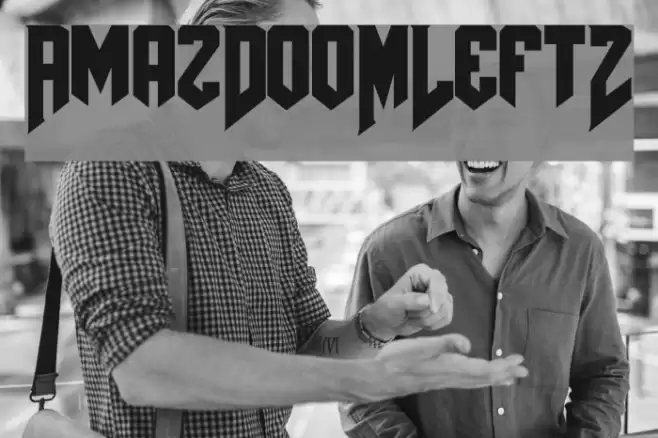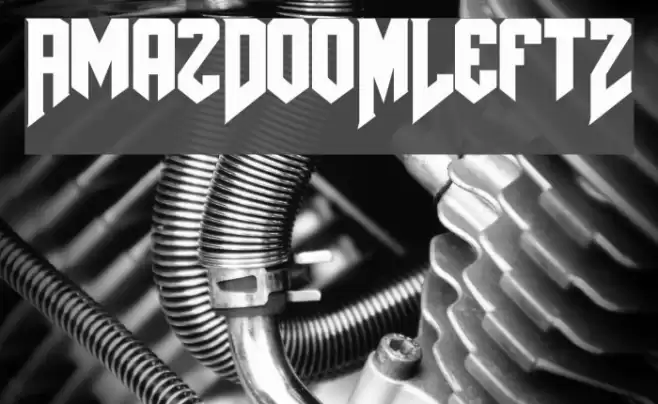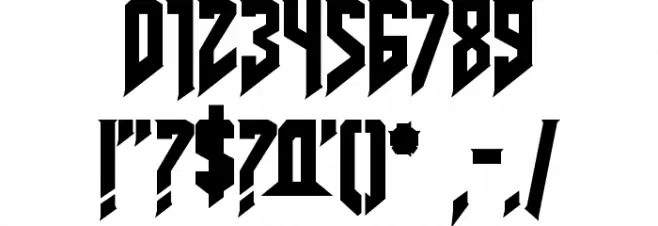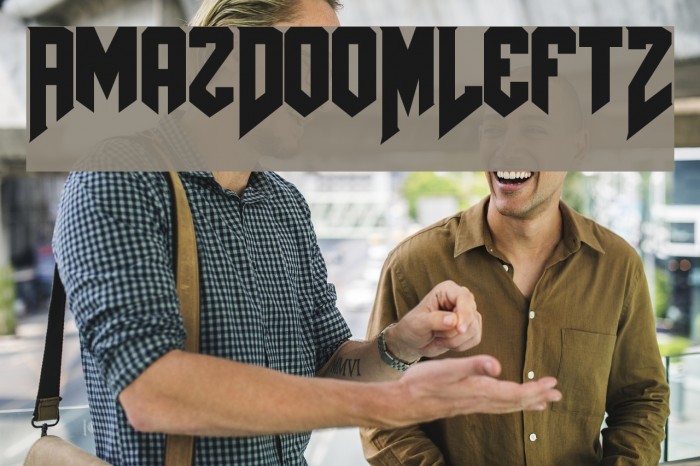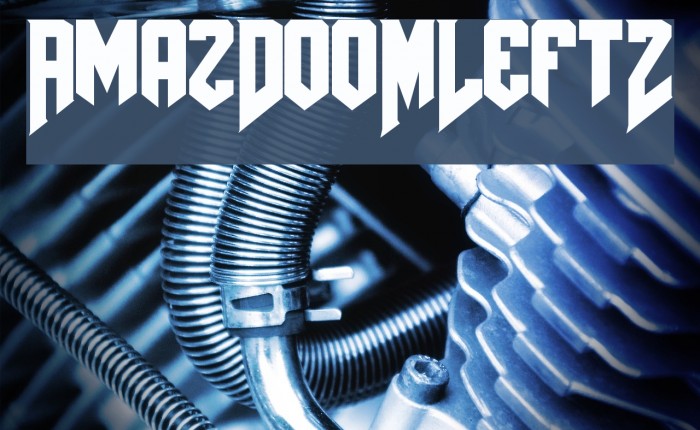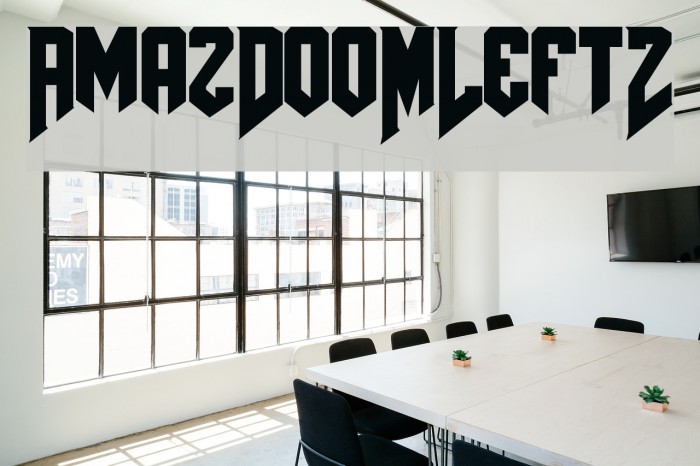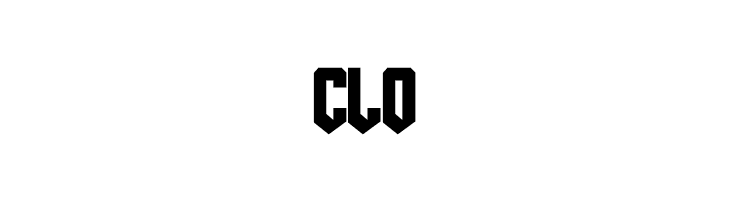
AmazDooMLeft2 Font
AmazDooMLeft2 Description
This font features a bold, angular design with sharp, geometric edges, creating a striking and aggressive appearance. The uppercase letters are particularly prominent, with a blocky and futuristic style that suggests movement and energy. The numbers and special characters maintain this dynamic aesthetic, making the font suitable for attention-grabbing designs. Its unique structure is reminiscent of digital or sci-fi themes, with a strong presence that commands attention. The consistent thickness of the strokes adds to its boldness, while the angular cuts and sharp points give it a distinctive, edgy look.
A bold, angular font with a futuristic and aggressive style from Uncategorized fonts.
- Proposed Projects: Ideal for video game titles, movie posters, branding for tech companies, or any project needing a bold, futuristic look.
- Overall Style: Futuristic, Edgy